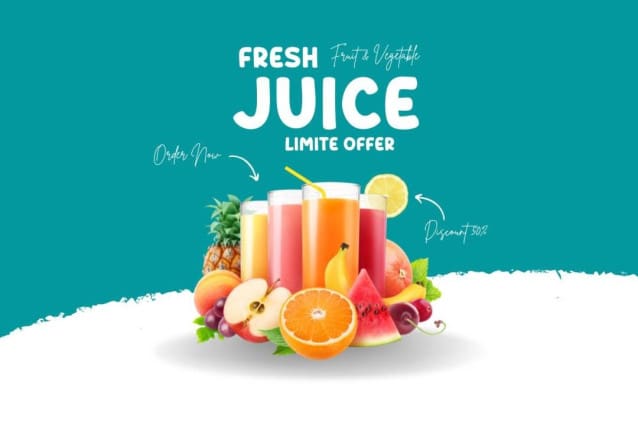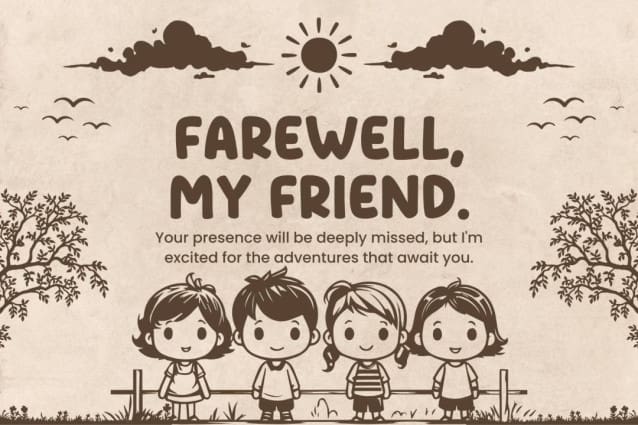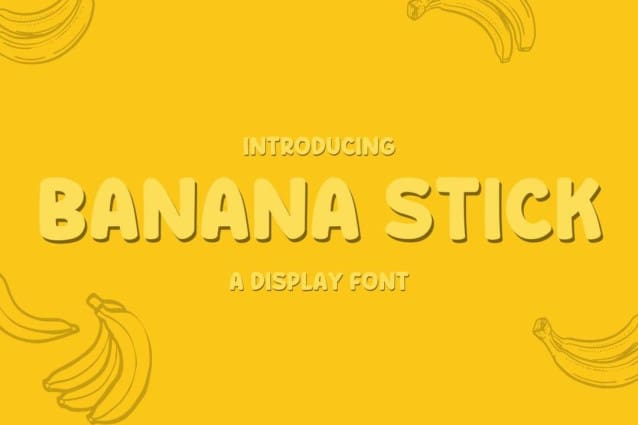
Banana Stick Font
Banana Stick Font is a chunky, comic, and cartoon display font. With its neat and joyful personality, this font will enhance any project you wish to create!